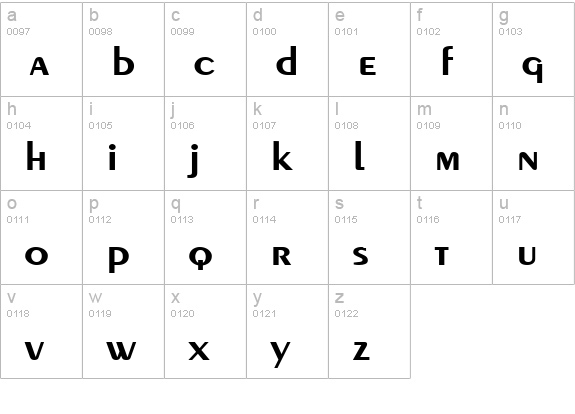
Pare Wide Bold Font Details
Pare Wide Bold is a strong, high-contrast, extended-width variant in the Pare typeface family \xE2\x80\x94 well suited to headlines, attention-grabbing titles, and strong calls-to-action.
Introducing Pare Wide Bold, a stunning and versatile font that is here to elevate your design projects to new heights. With its bold and confident letterforms, this font demands attention and makes a bold statement. Whether you're working on a logo, headline, or any other creative endeavor, Pare Wide Bold is the perfect choice to make your message stand out. This font exudes a sense of strength and power, with its wide and commanding characters that leave a lasting impression. Its carefully crafted curves and sharp edges give it a modern and professional look, while still maintaining a touch of elegance and sophistication. No matter the context, Pare Wide Bold effortlessly captures attention and conveys your message with clarity. What makes Pare Wide Bold even more appealing is that it is available for free download at FontsMarket.com. That's right, you can have this exceptional font at absolutely no cost. Whether you're a professional designer or a hobbyist, this opportunity allows you to access high-quality typography without breaking the bank. FontsMarket.com offers a wide range of fonts, and Pare Wide Bold is just one of the many gems waiting for you to discover. So why wait? Enhance your design projects with Pare Wide Bold and experience the impact it can make. Download this font for free at FontsMarket.com and unlock a world of possibilities for your creative endeavors.